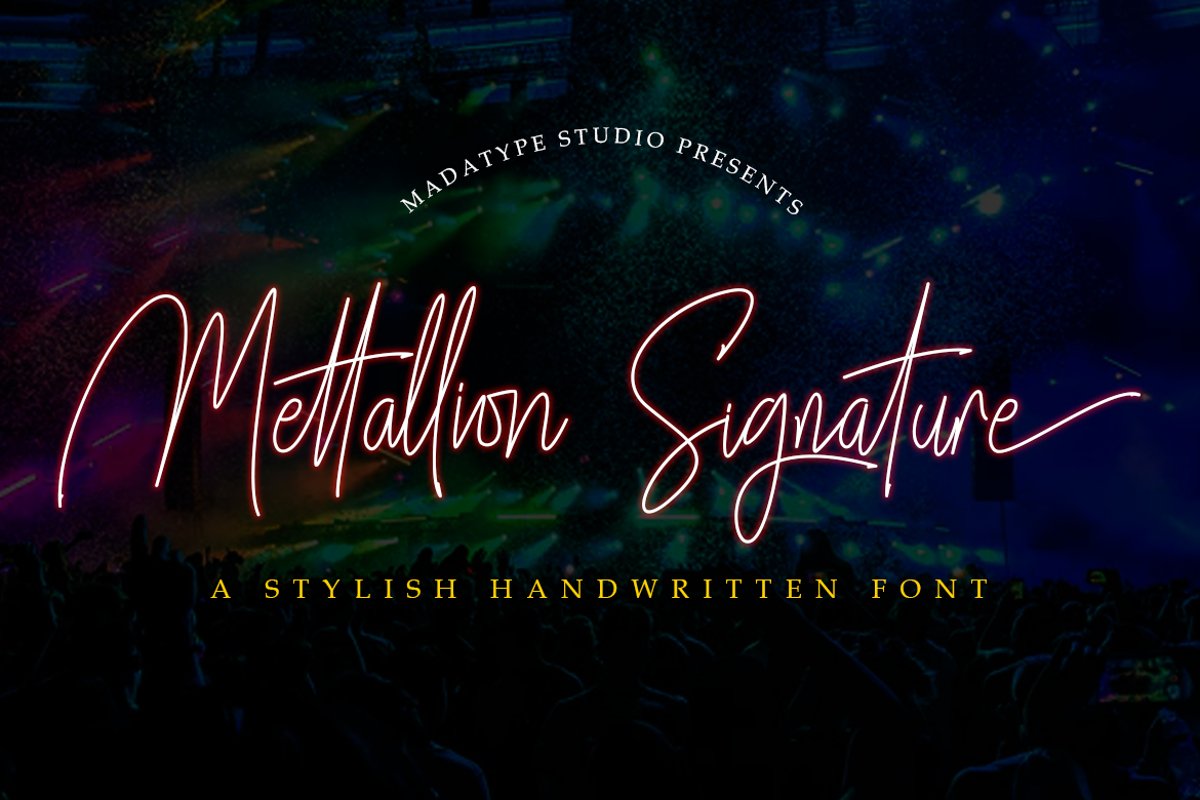
Mettalion Signature
Mettallion Signature
Mettallion Signature is a stylish handwritten font that features dozens of stunning ligatures and alternates. It is perfect for any design in need of a natural and stylish handwritten feel.
Mettallion Signature  is a good choice to use for your  branding, signature, watermark and any design you love.
• Ligatures & Alternates